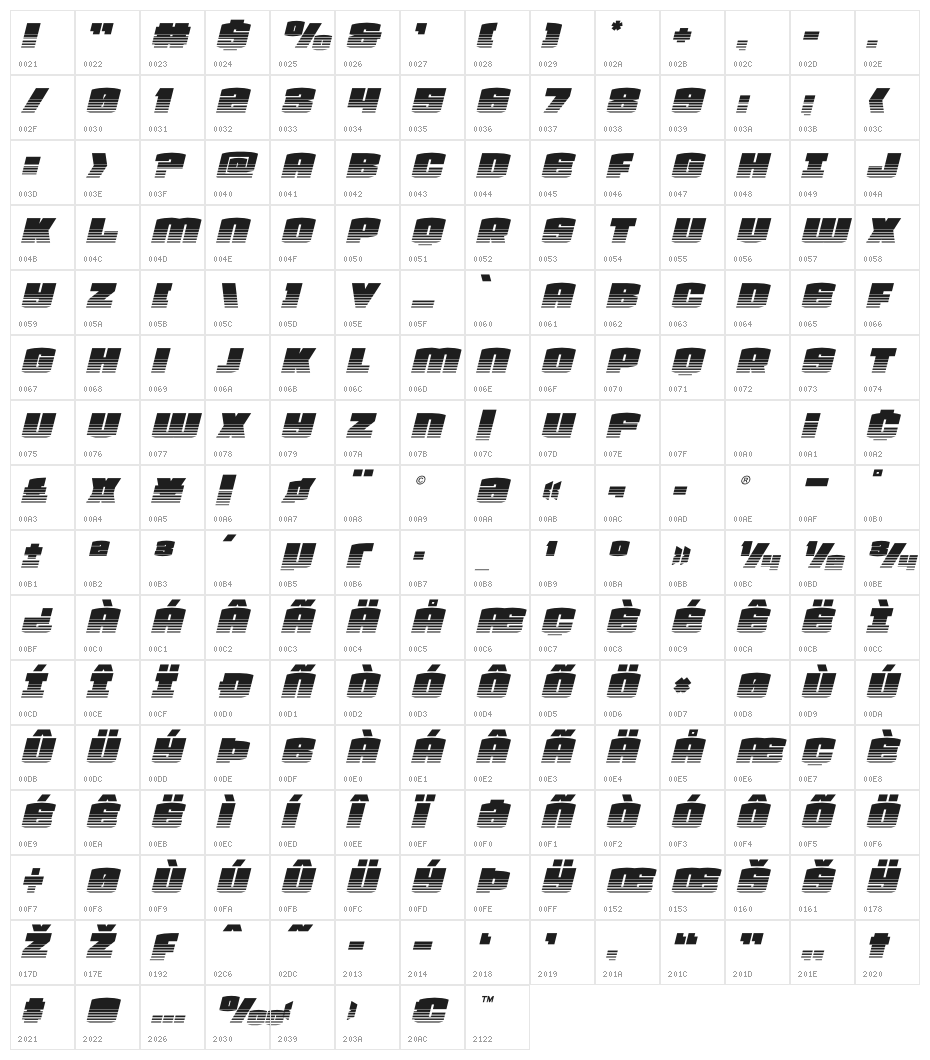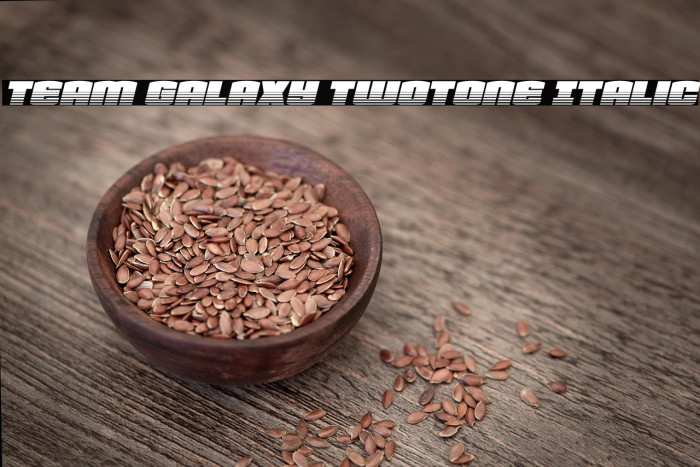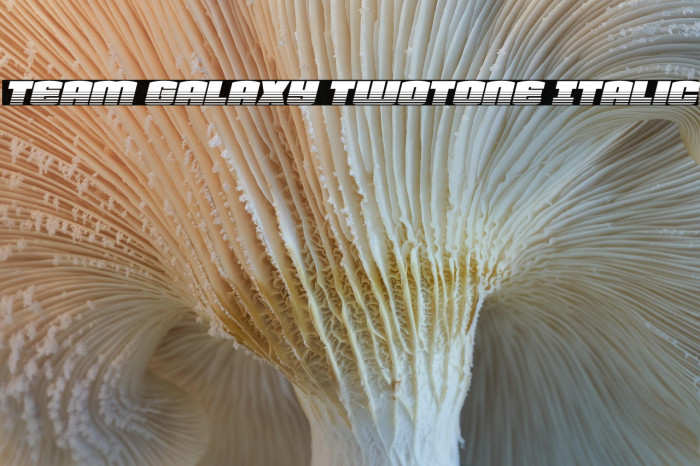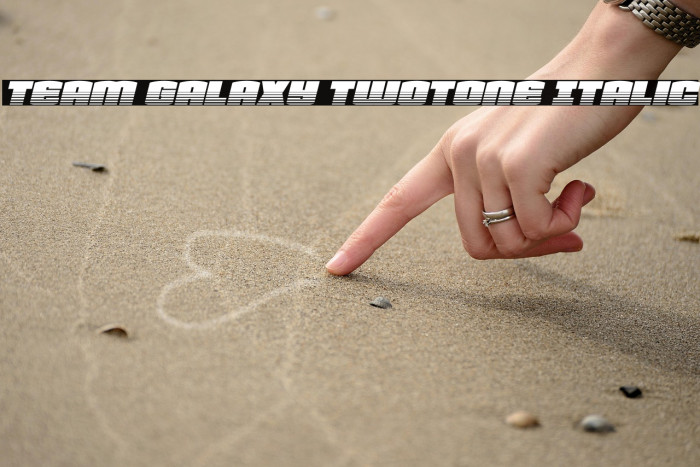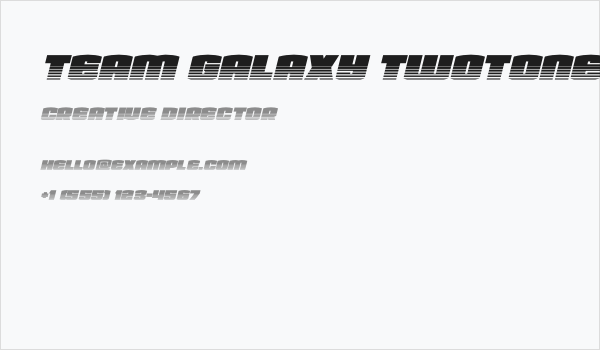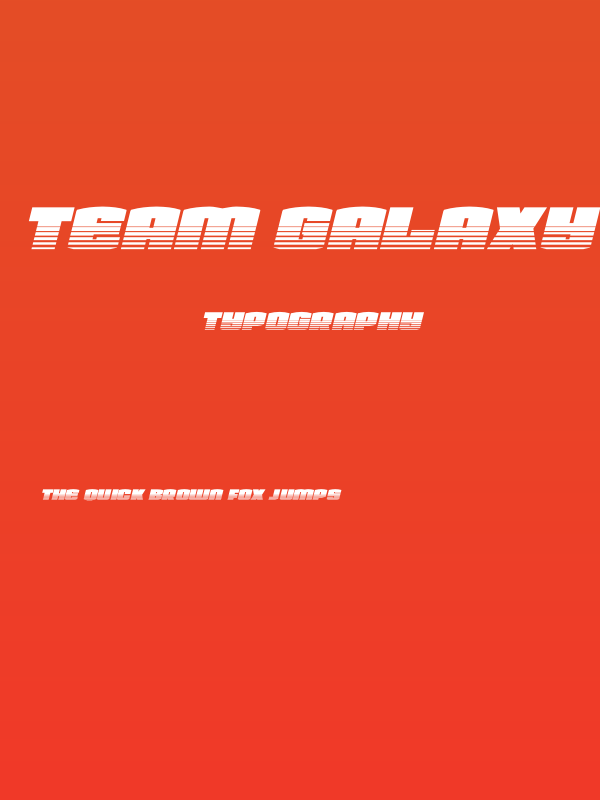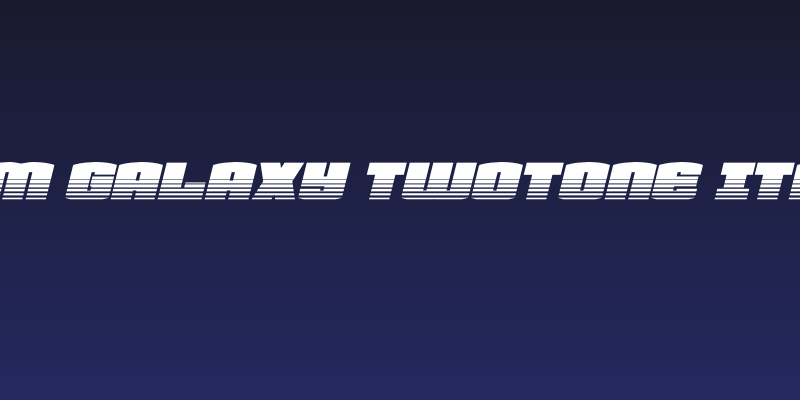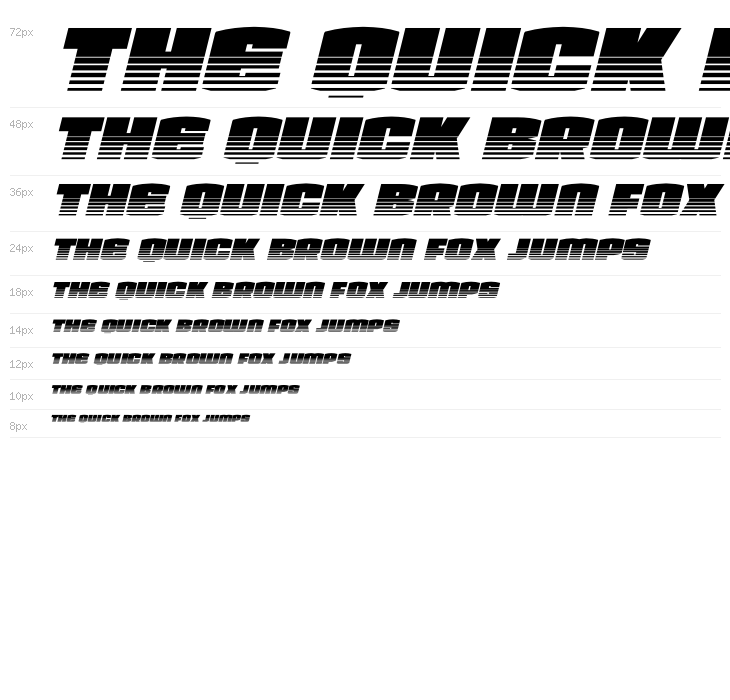
Team Galaxy Twotone Italic Font
Team Galaxy Twotone Italic Description
This font features a bold, futuristic design with a distinctive two-tone effect. Each character is composed of horizontal lines that create a dynamic, striped appearance, giving it a sense of movement and speed. The italic slant adds to its modern and energetic feel, making it stand out in any design. The uppercase and lowercase letters maintain a consistent style, while the numbers and special characters are equally bold and striking. This font is perfect for projects that require a strong, contemporary aesthetic.